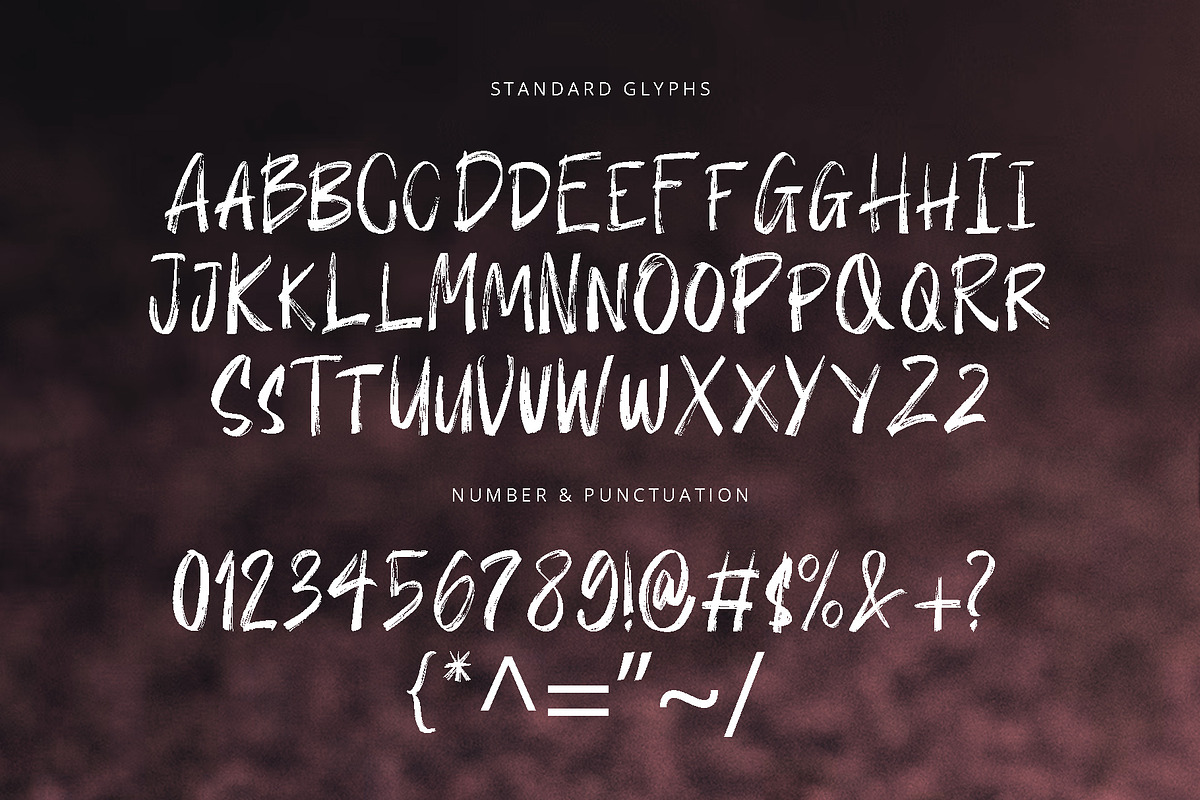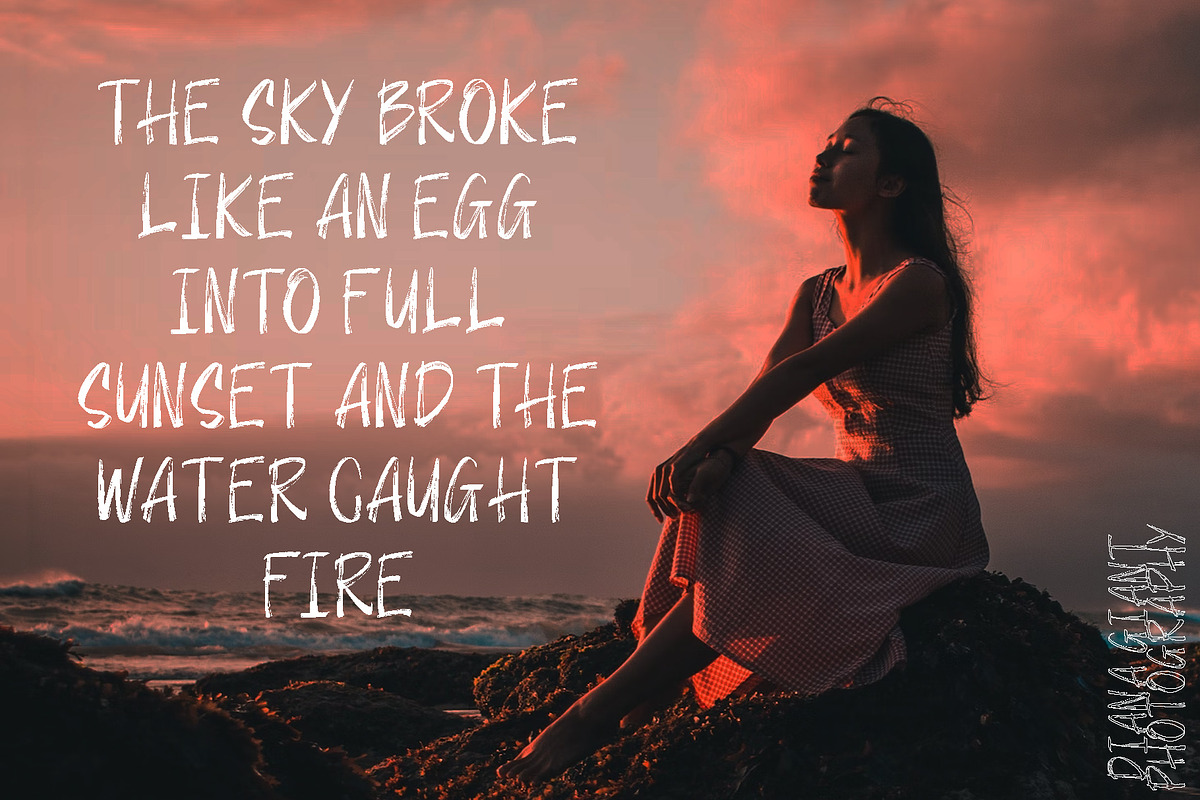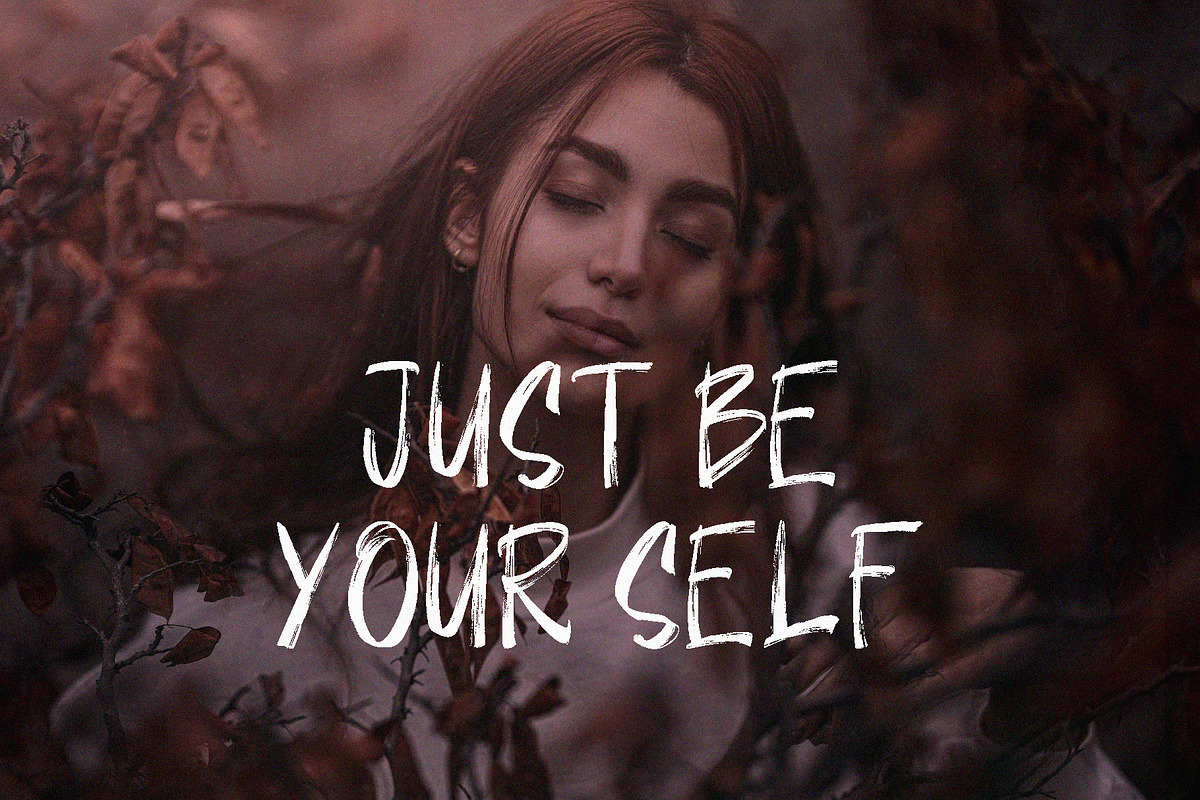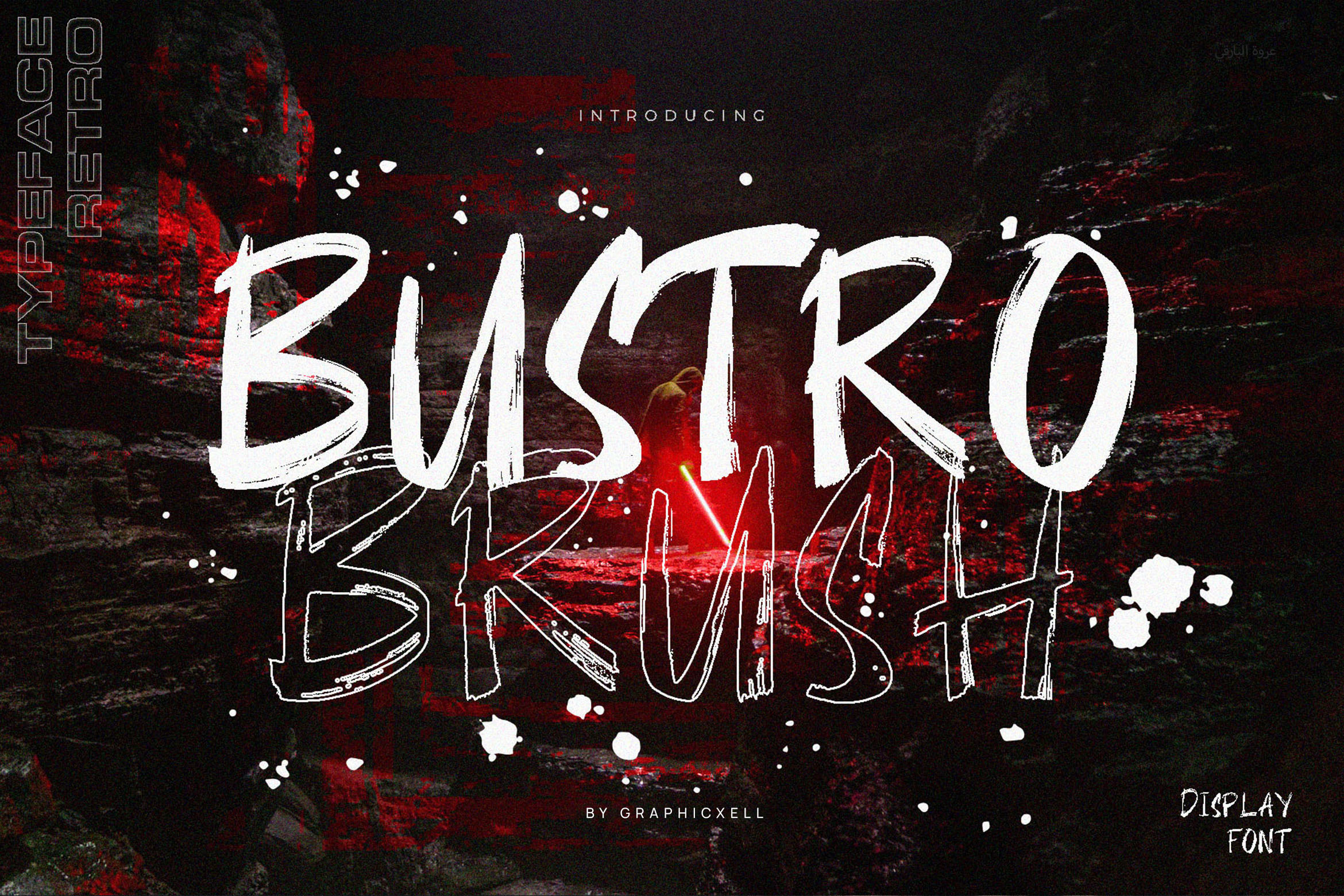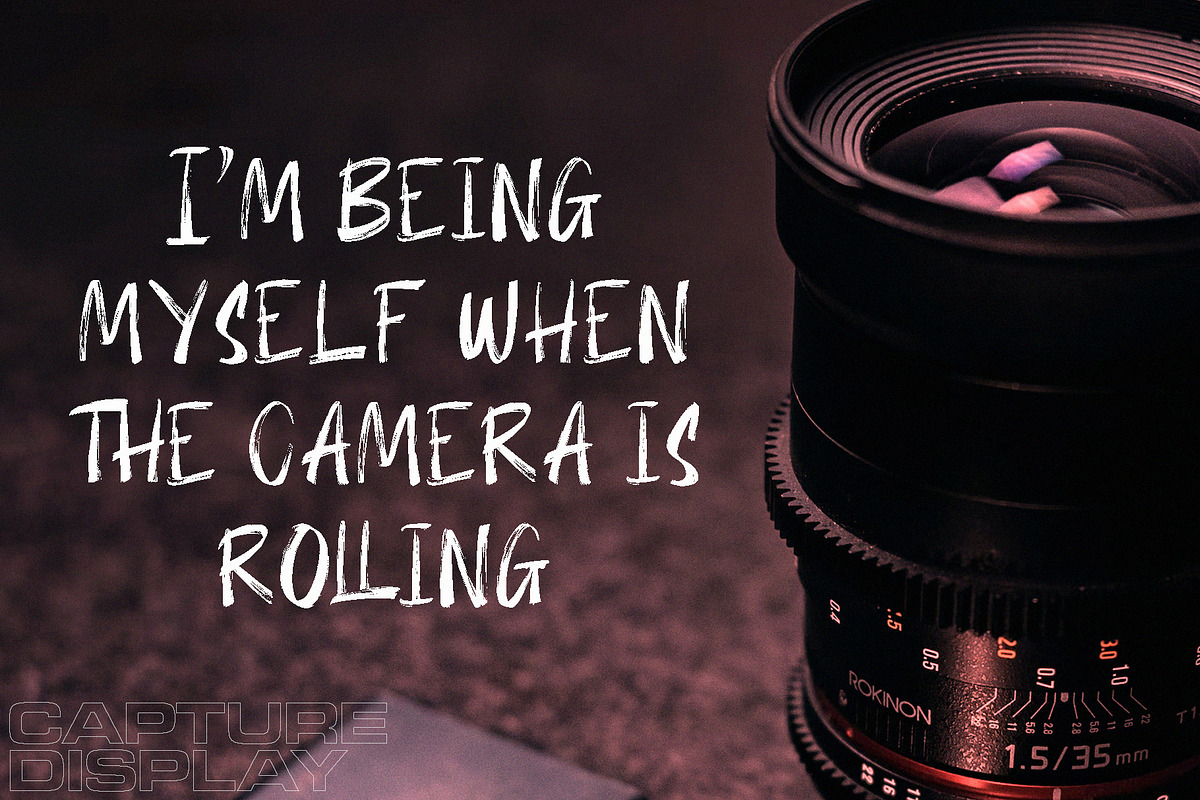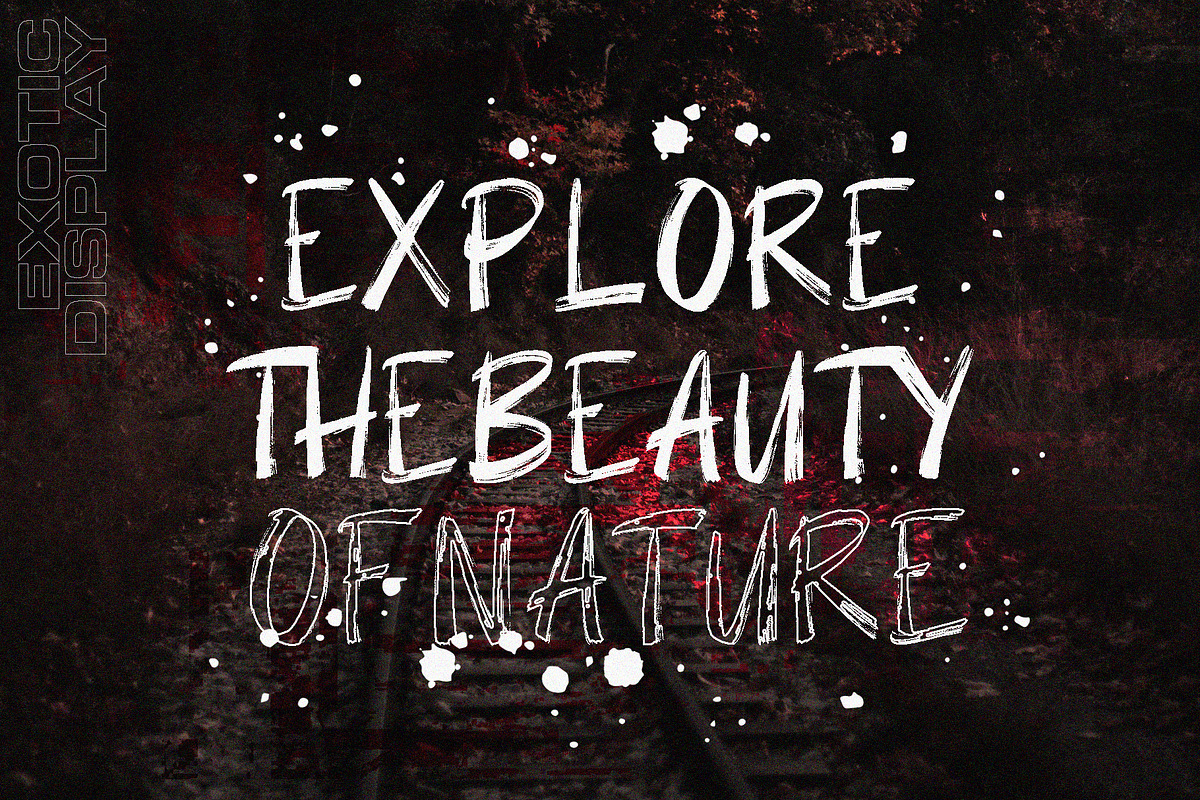
Bustro Brush Font
If you are looking for an aesthetic font, Bistro Brush Font must be your choice. This is a brush font that comes with natural strokes. Its thicker dimensions make this font more stable. The firmness of the lines also becomes its own unique characteristic. In this font, the touch of the brush is very clear. The more important thing is that its ligature makes this brush font not boring. The natural strokes are really full of meaning and love. So, the best use is for high artistic design because it has a strong and retro style. When it comes to the use, this type of font is suitable for various professional projects. Therefore, make sure that you own this font! If you work on merchandise projects, branding, book covers, t-shirts, greeting cards, wedding elements, posters, business cards, or blog titles, this is a must-have font. Versatility is one of the key features of this font. So, you can use it for different projects. Even more, it will work well to be paired with any other fonts. Whatever the project you do, Bistro Brush Font will add elegance and sophistication. Anyway, using this font can be a great idea to elevate your works. So, this brush font is a perfect choice.